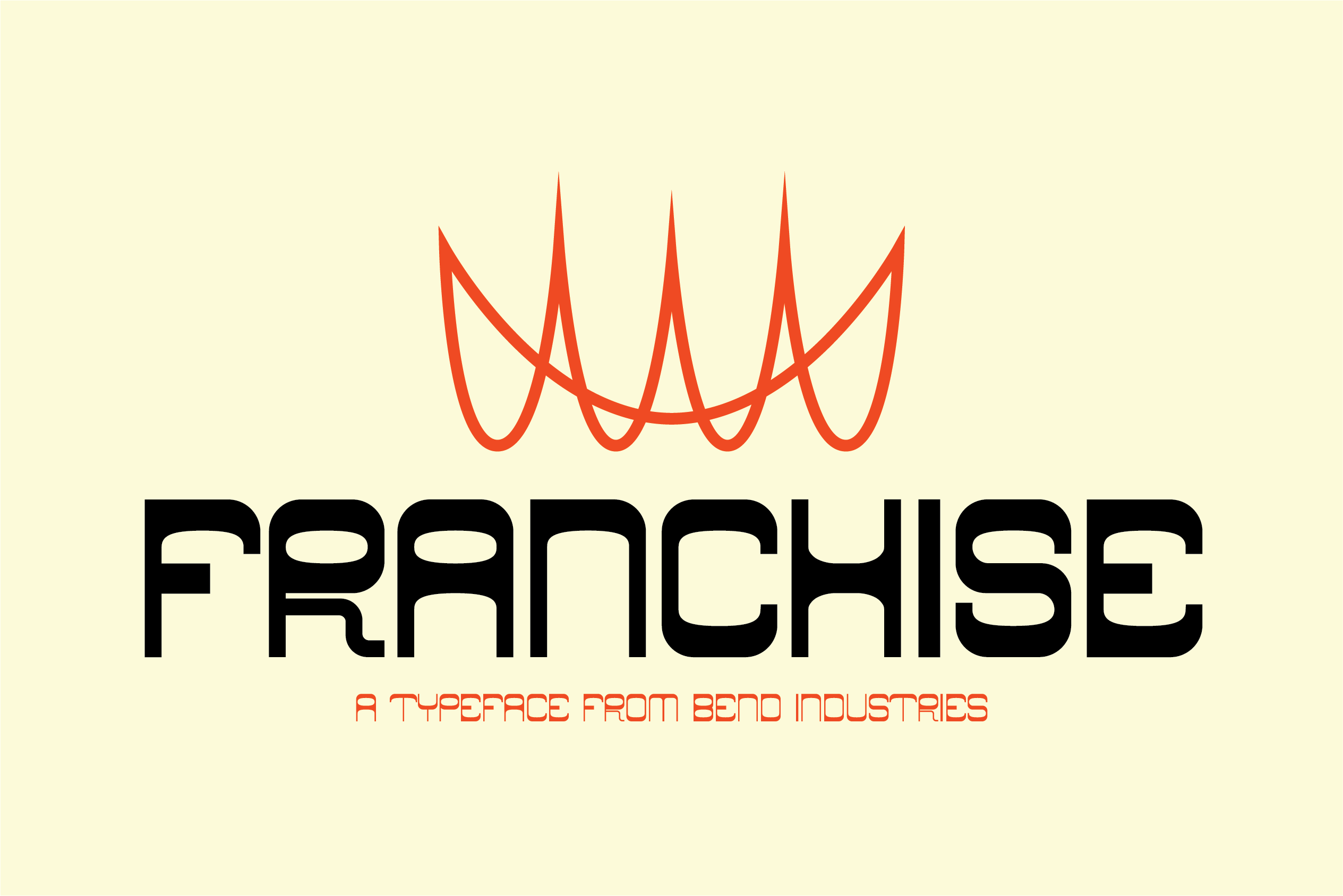
Franchise Typeface
Franchise is a playful typeface that has elements of mid century appeal. It was built from looking at too much furniture design from that era and getting inspired from their use of simple clean f=geometry to build forms. Enjoy.